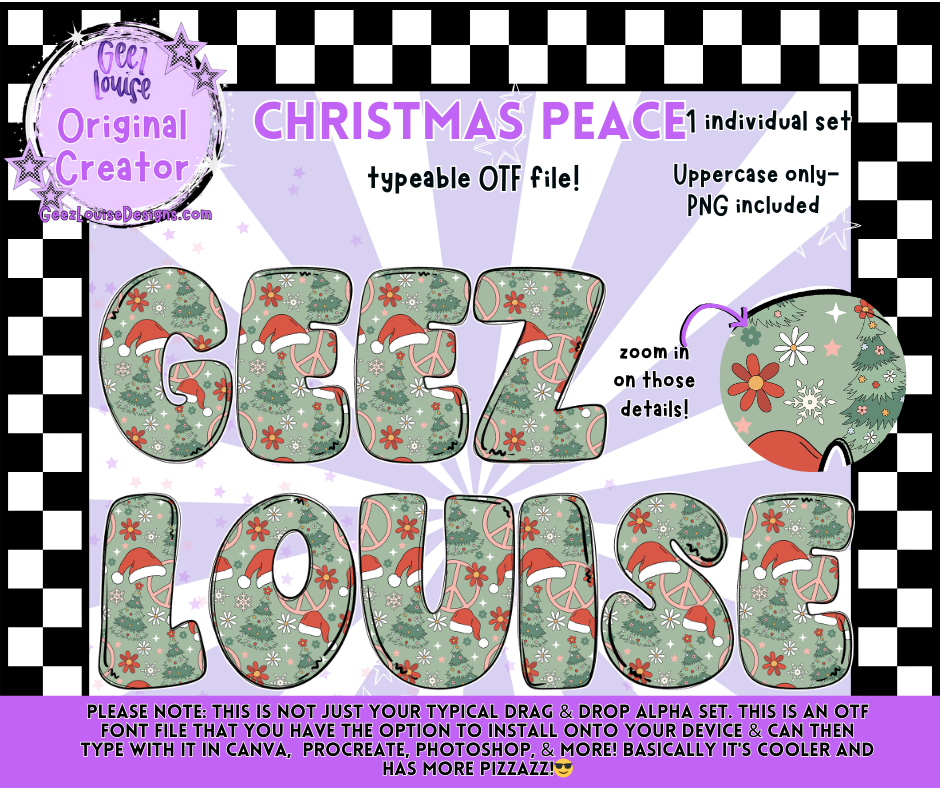
Christmas Peace — Typeable OTF Font + PNG
Santa hats. Holly chaos. Holiday pizzazz. This font is a full-blown sleigh ride through maximalist Christmas energy. Designed for creators who want their type to sparkle, scream, and stir up seasonal mischief.
1 individual set – Festive patterns with stars, holly, and Santa hat details
✨ Why It Slaps:
Perfect for holiday merch, caption challenges, and festive mascot lore
Built for chaos layering, gift guide graphics, and snarky seasonal drops